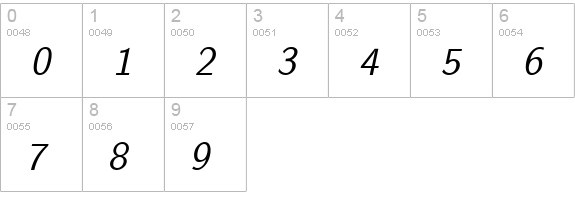
Nova Oblique Font Details
Nova Oblique is a distinctive, italic variant in the Nova typeface family \xE2\x80\x94 well suited to design and typography projects.